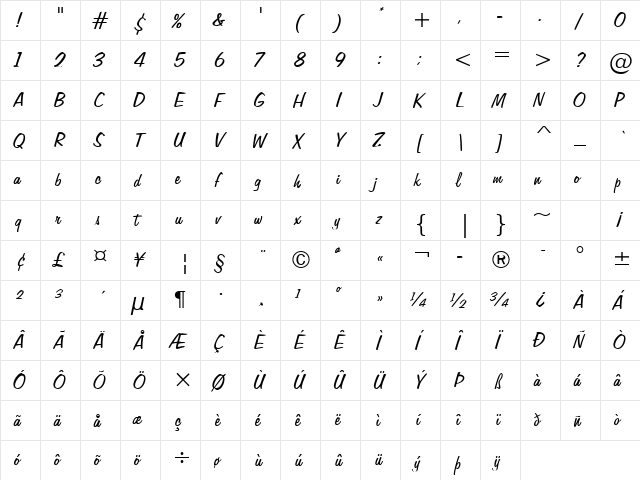
Jott 45 Normal
Design Context for Jott 45 Typeface
Jott 45 takes a measured approach to typography — its balanced proportions and neutral character make it a reliable workhorse for both digital and print work.